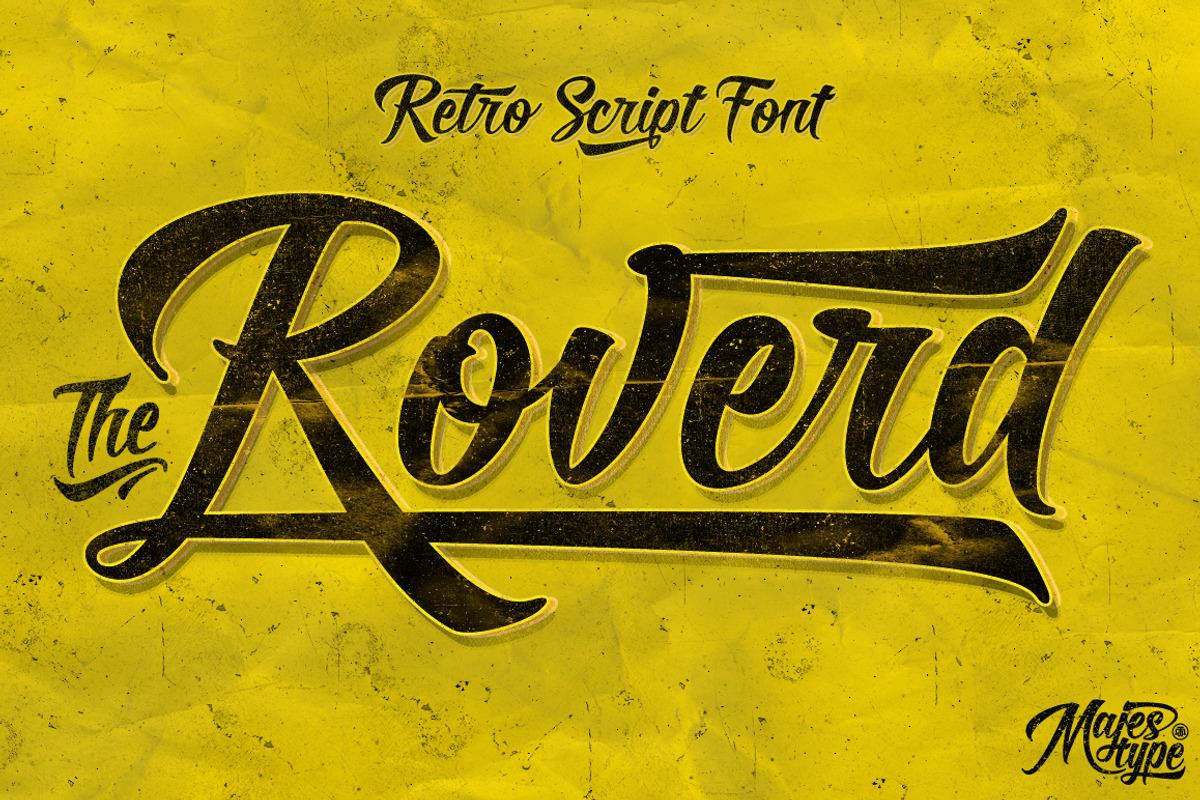
Roverd - Retro Font Free Download
Roverd - Retro Font Free Download is a bold and nostalgic typeface inspired by the vibrant and stylish designs of the past. With its thick, rounded letterforms and vintage aesthetic, this font is perfect for creating retro logos, posters, event invitations, and branding that captures the essence of classic design. Whether you're working on a retro-themed project, a music album cover, or a vintage-inspired brand, Roverd - Retro Font Free Download lets you explore its unique charm in personal projects before purchasing a commercial license. Add a touch of nostalgia and style to your designs with this eye-catching retro font.